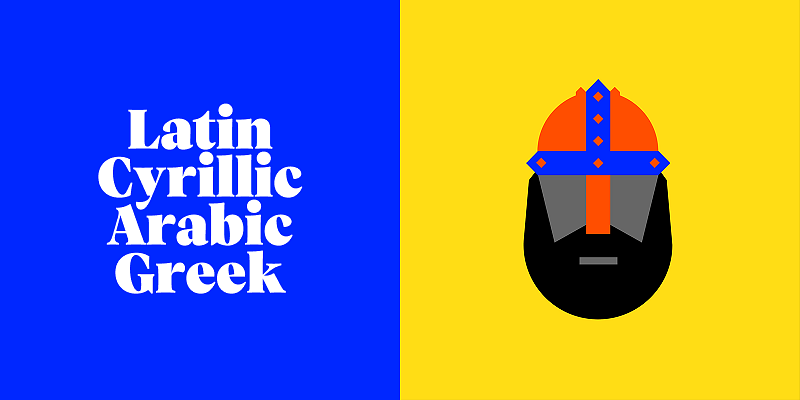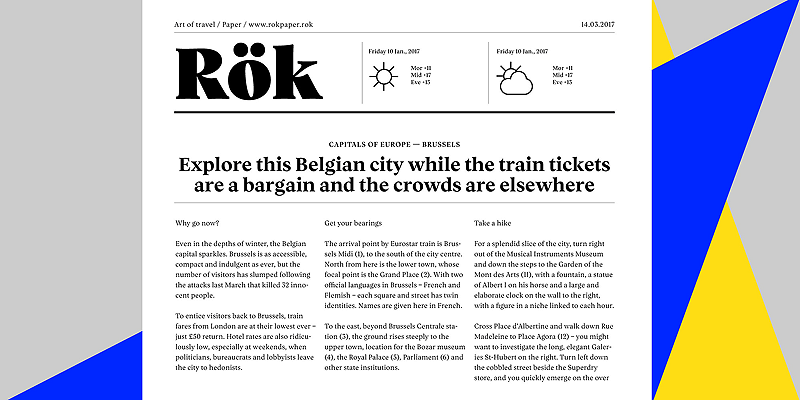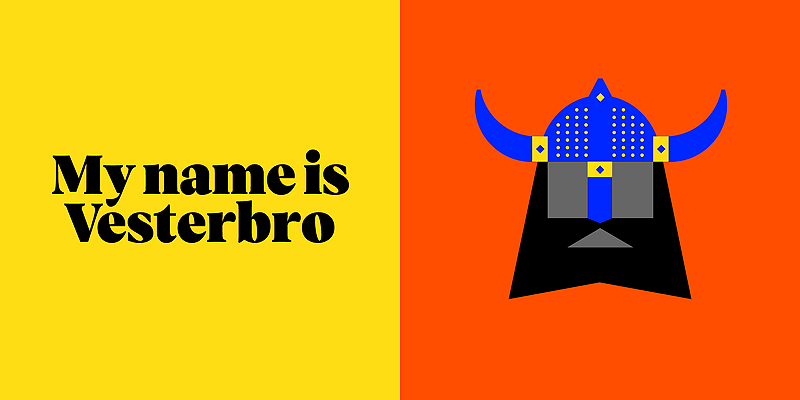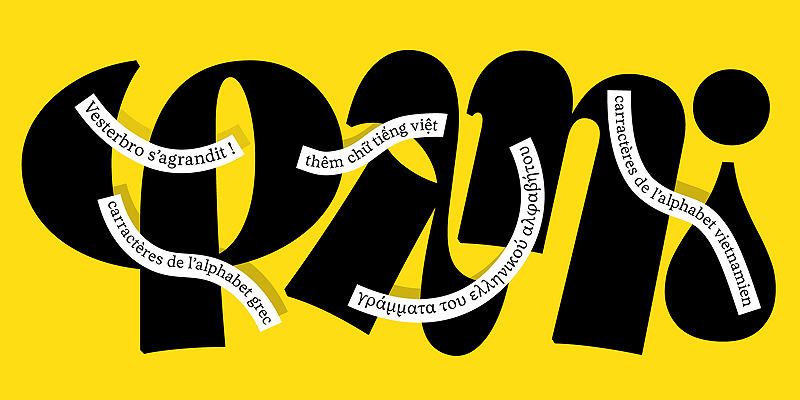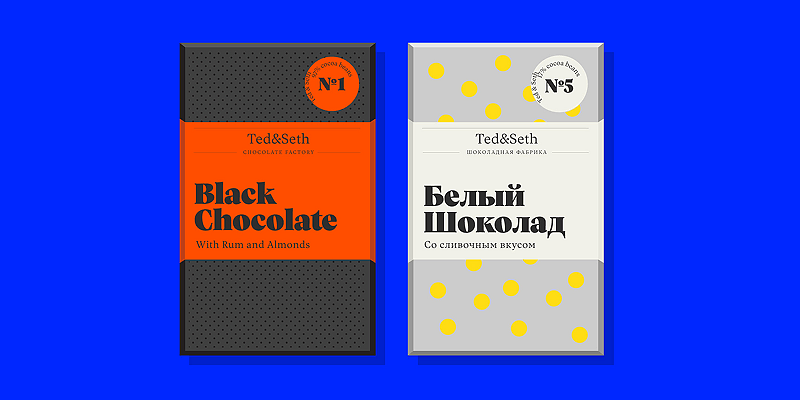
Vesterbro is an expressive serif named after the Copenhagen district where the old Western Gate once stood. Blending historical influences with contemporary warmth, it spans from the high-contrast Poster weight to confident Text styles, where supple curves and short serifs add charm and readability. Supporting Latin, Greek, Cyrillic, and Arabic, Vesterbro is offered as both static and variable fonts, delivering a sophisticated yet inviting tone for branding, editorial, and digital storytelling.